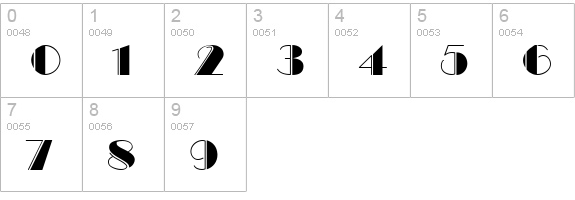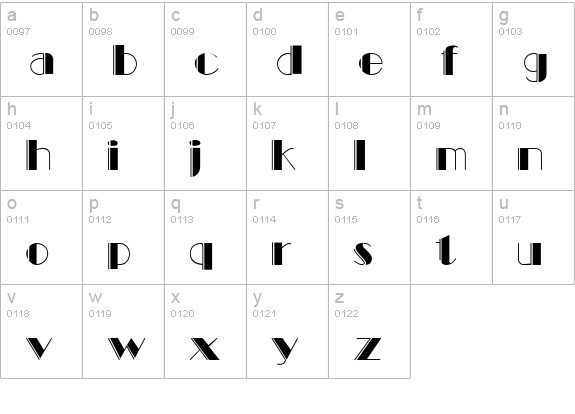
Black Tie Engraved Display SSi Font Details
Black Tie Engraved Display SSi is a maximum-weight, dramatic variant in the Black typeface family \xE2\x80\x94 well suited to maximum-impact headlines, posters, and packaging.
Black Tie Engraved Display SSi font is an elegant and sophisticated typeface that exudes a sense of luxury and class. Its sharp, engraved details give it a unique and stylish look that is perfect for adding a touch of sophistication to any design project. Whether you're creating invitations, logos, or signage, this font will elevate your design to the next level. The best part? Black Tie Engraved Display SSi font is available for free download at FontsMarket.com. So you can add this stunning typeface to your collection without spending a dime. Don't miss out on the opportunity to enhance your designs with this exquisite and timeless font. Download it today and bring a touch of elegance to your next project.